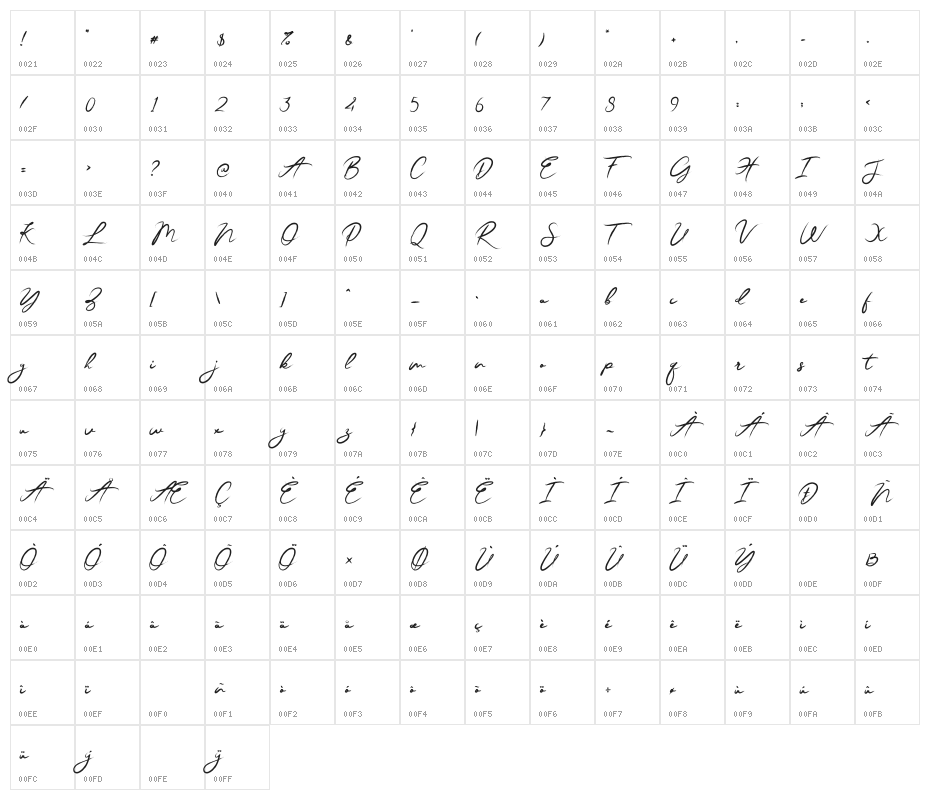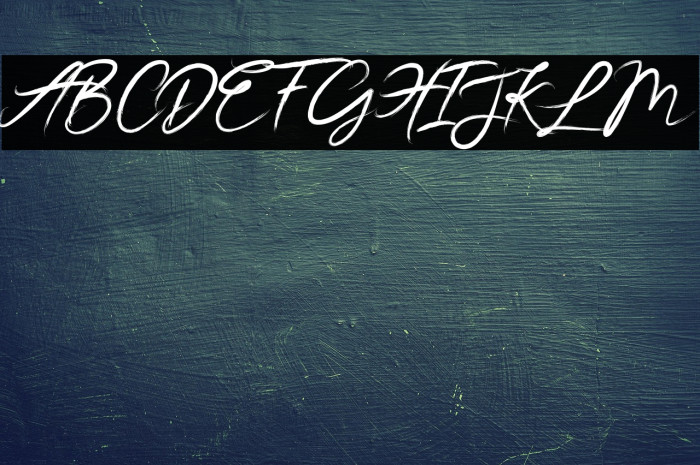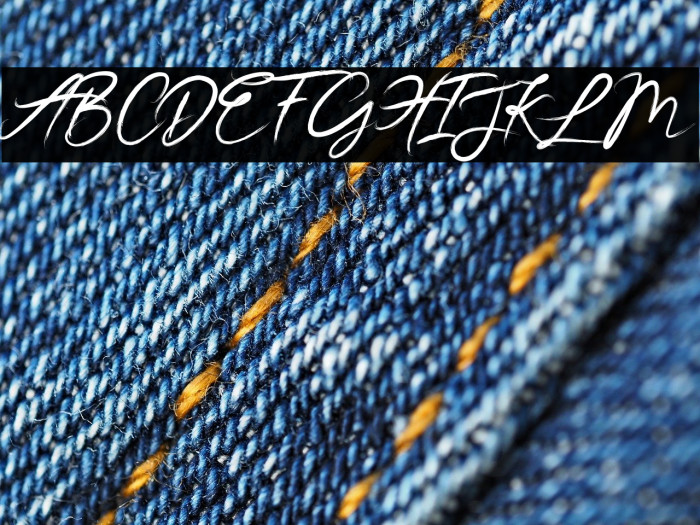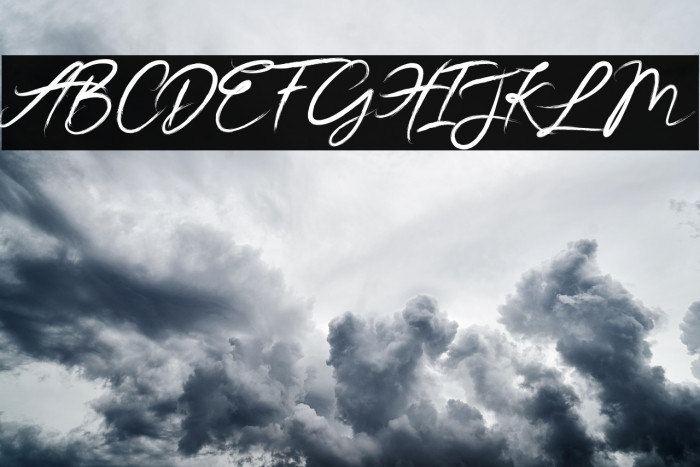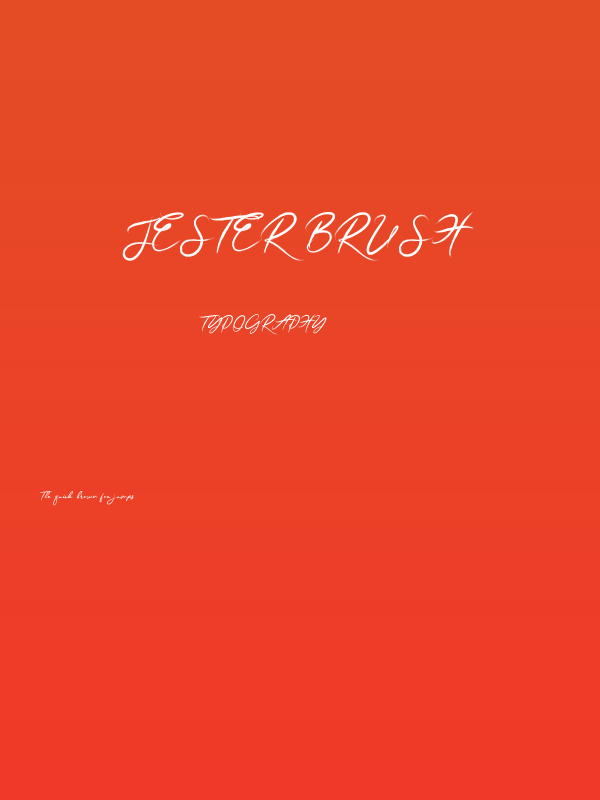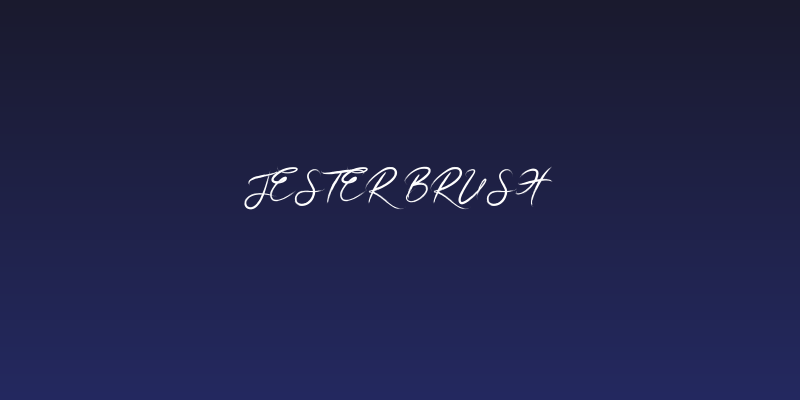
Jester Brush Font
Jester Brush Description
This font exudes a playful and artistic flair, characterized by its brush-like strokes that give it a dynamic and fluid appearance. The uppercase letters are bold and sweeping, with a sense of movement that suggests a hand-painted style. The lowercase letters maintain this fluidity, with elegant curves and a slightly informal touch. Numbers and special characters follow the same artistic theme, making them stand out with their unique and expressive forms. The overall design is both modern and artistic, suitable for projects that require a personal and creative touch.
| Overall Style | Modern, Decorative |
| Use Case | Logos, Headlines, Artistic projects |
| Proposed Projects | Ideal for creative projects such as invitations, greeting cards, posters, and branding materials that seek a personal and artistic touch. |